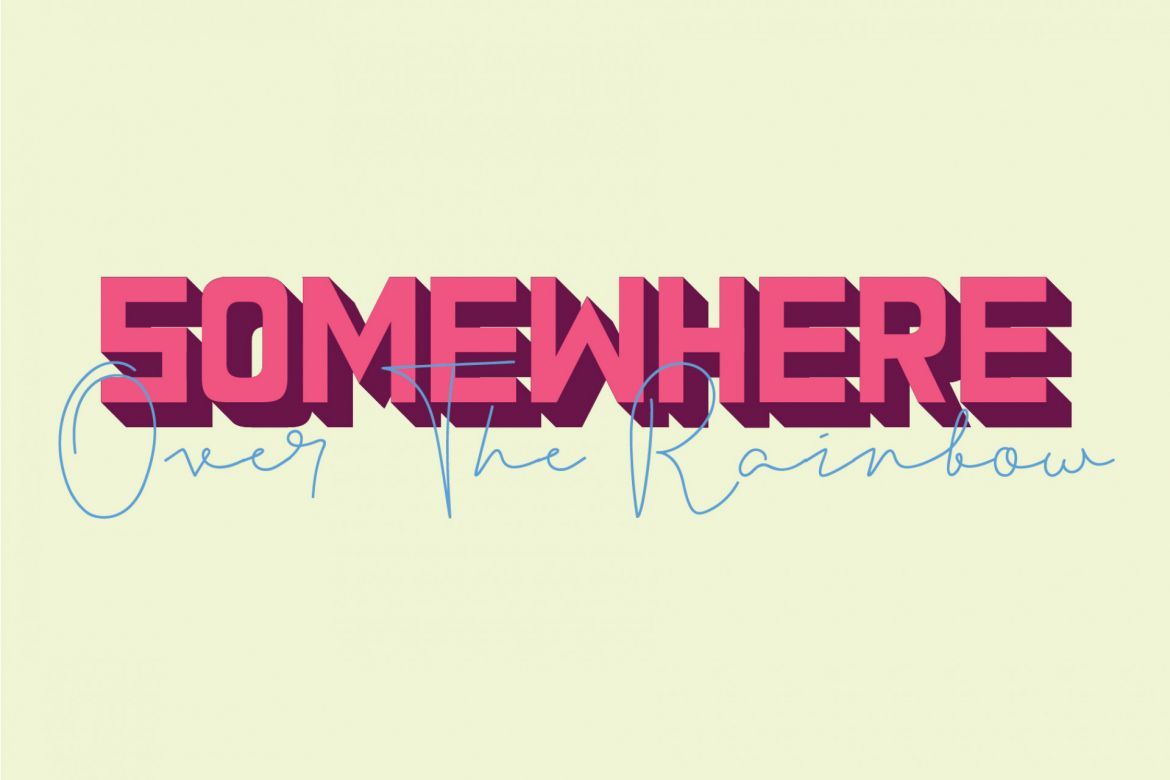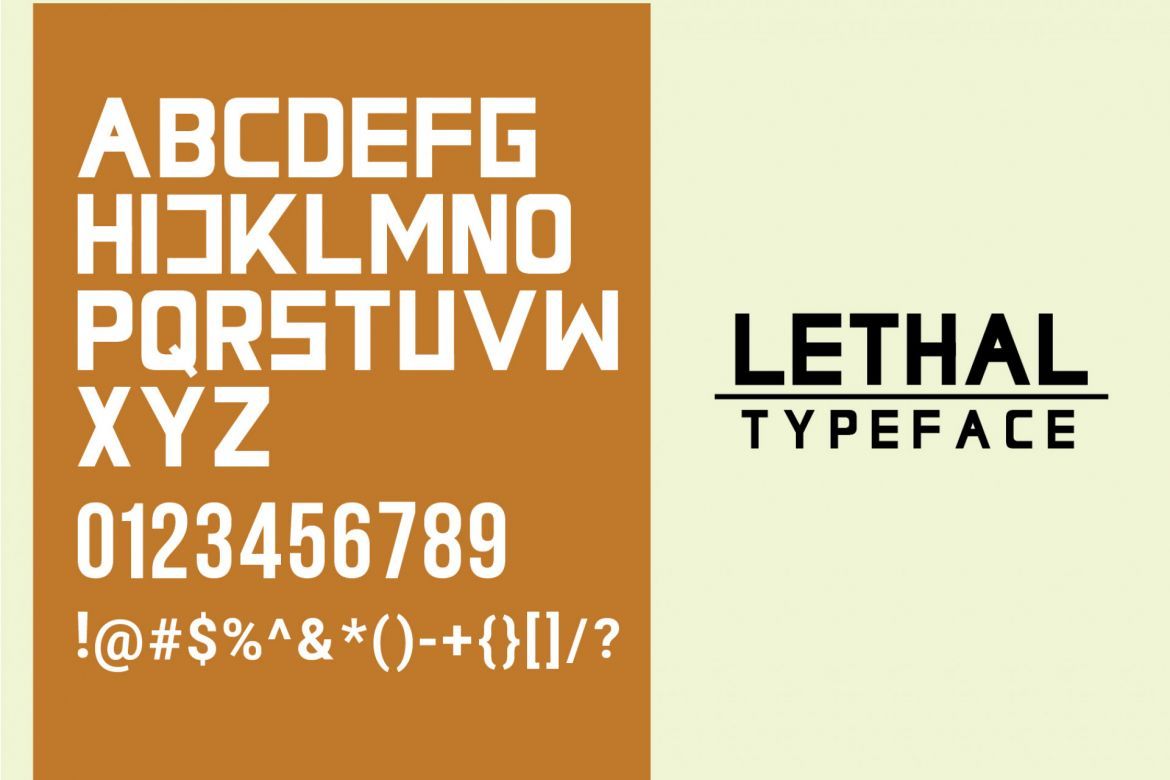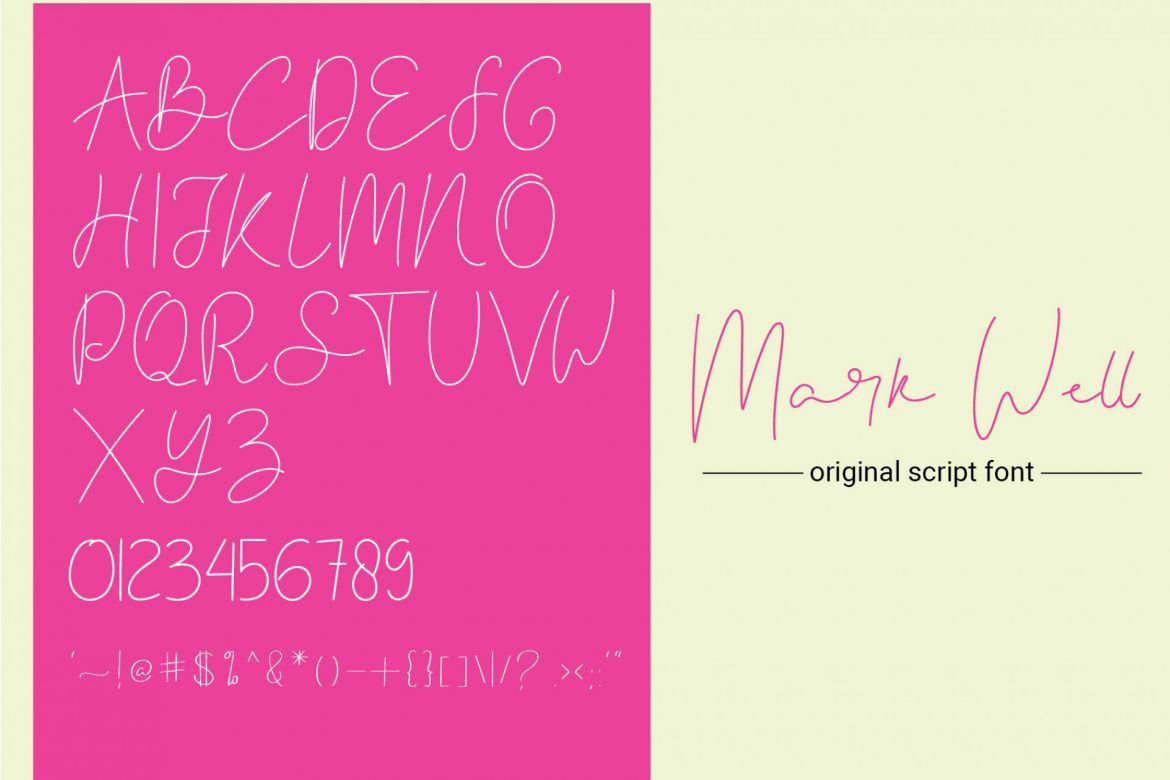
Lethal Markwell Font Duo
Hello there, here is DUO font, it's perfect for you to give your design an elegance style. This is an original hand writing font, perfect for give your design an authentic touch.
• original hand drawn font
• perfect for headline and slogan